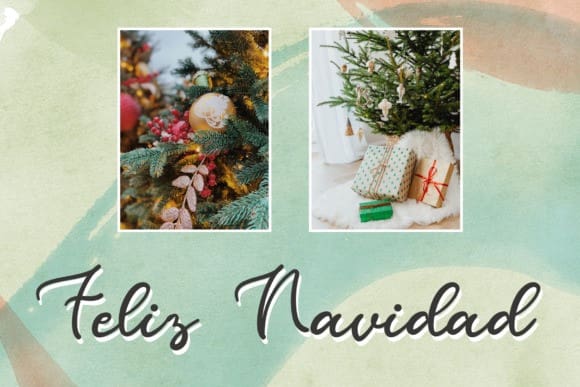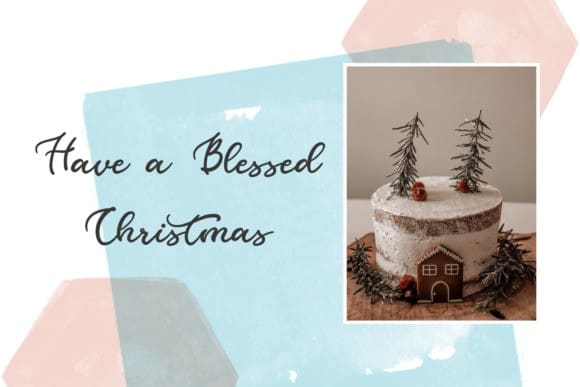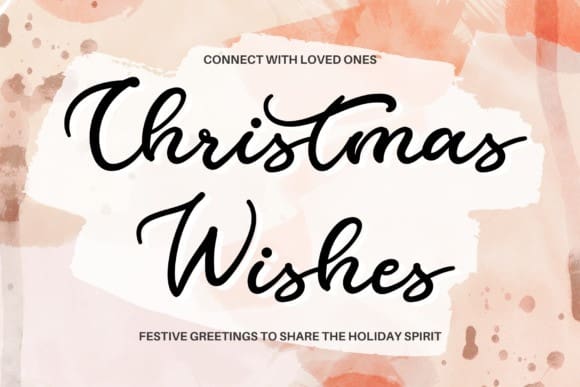
Christmas Wishes Font
Christmas Wishes Font is a delicate script font. It will add a luxury spark to any design project that you wish to create! This font is PUA encoded which means you can access all of the amazing glyphs and ligatures with ease!